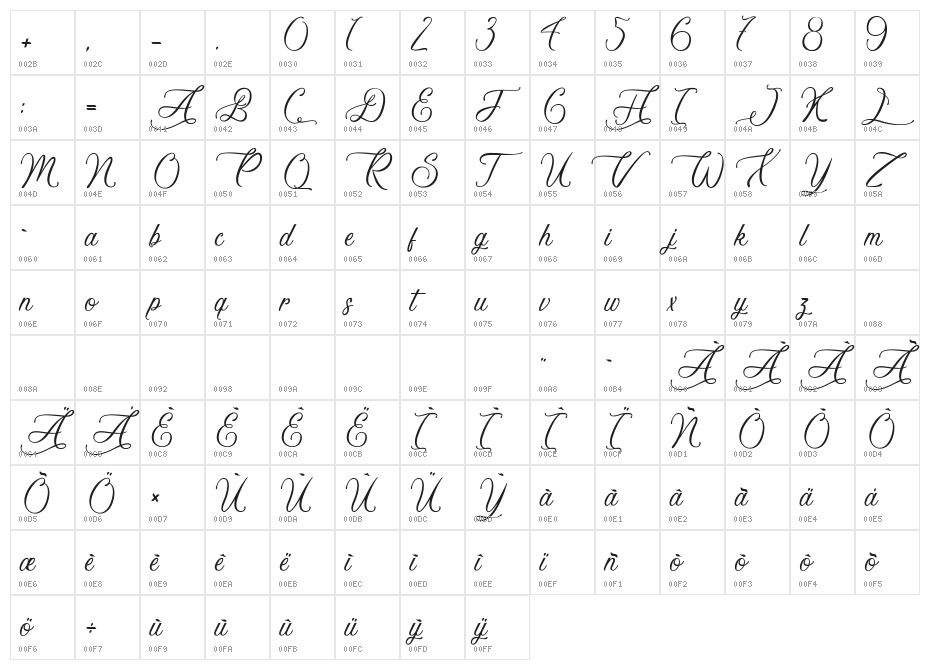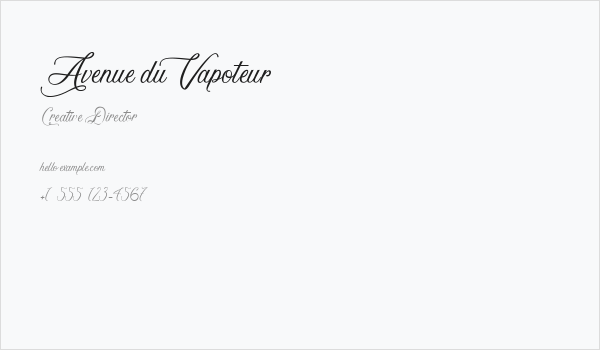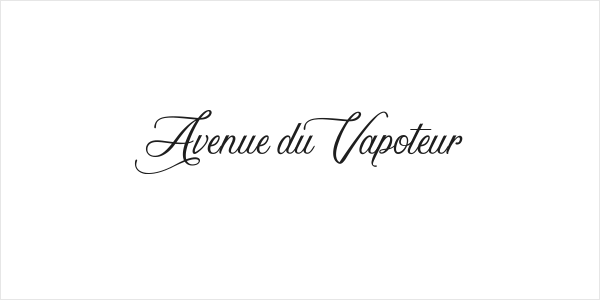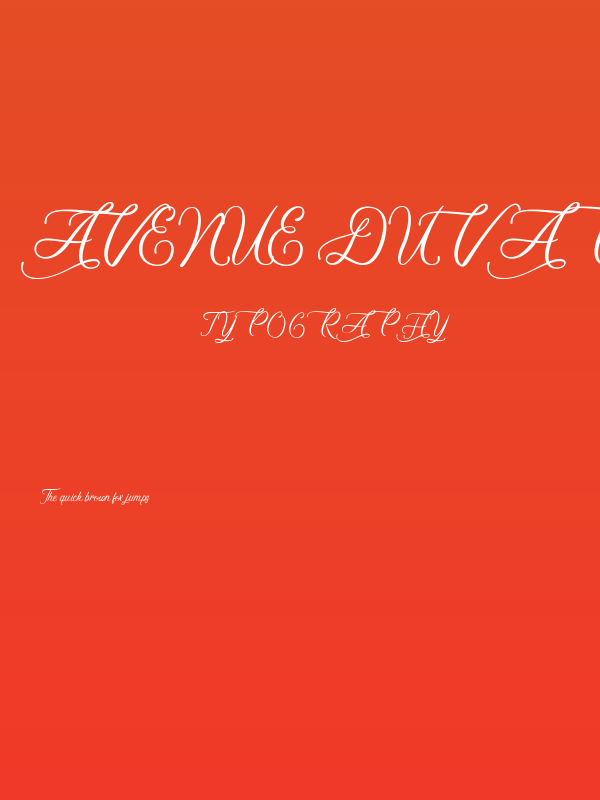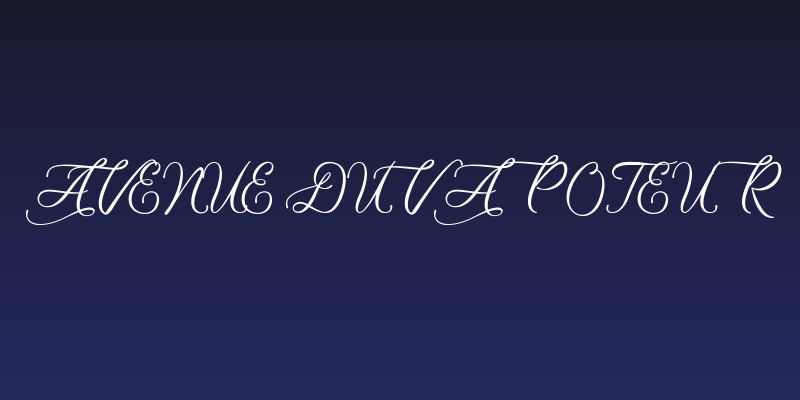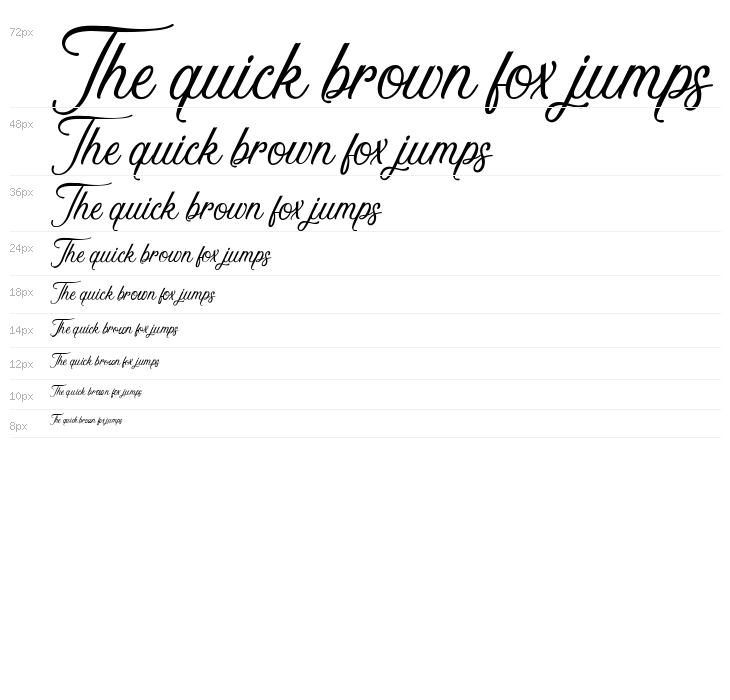
Avenue du Vapoteur Font
Avenue du Vapoteur Description
This elegant script font features a flowing, cursive style with intricate loops and swashes that give it a sophisticated and graceful appearance. The uppercase letters are particularly ornate, with elaborate flourishes that enhance their decorative appeal. The lowercase letters maintain a consistent slant, contributing to the font's fluidity and elegance. The numerals are equally stylish, with a slight slant and gentle curves that harmonize with the overall design. Special characters, such as punctuation marks, are thoughtfully integrated, maintaining the font's cohesive aesthetic. This font exudes a sense of refinement and artistry, making it ideal for projects that require a touch of elegance and sophistication.
| Overall Style | Elegant, Decorative |
| Use Case | Invitations, Branding, Packaging |
| Proposed Projects | Ideal for wedding invitations, elegant branding, high-end product packaging, and formal event programs. |